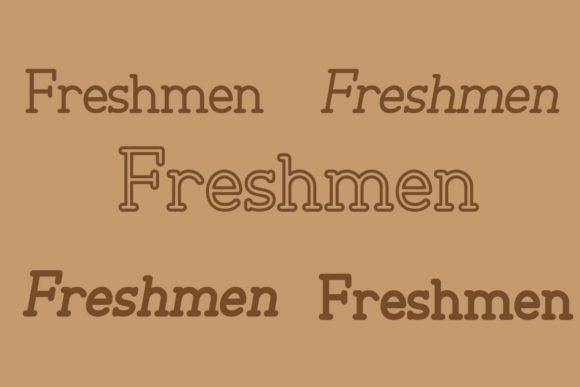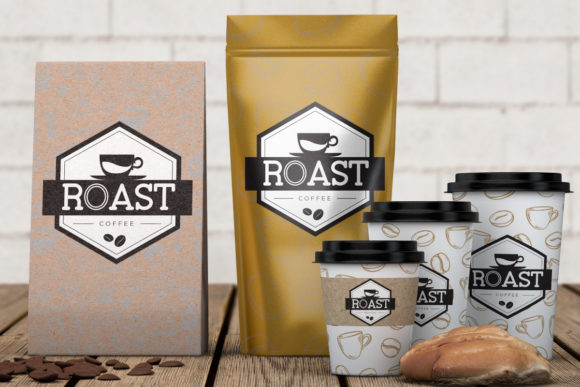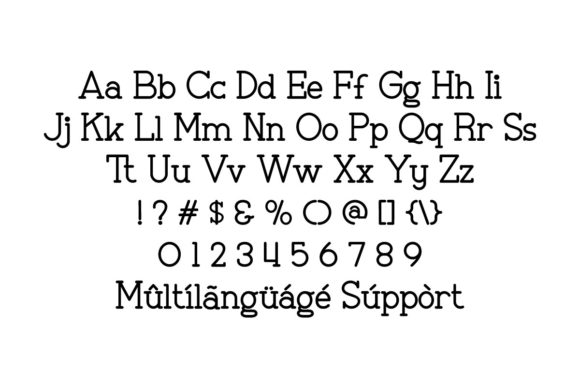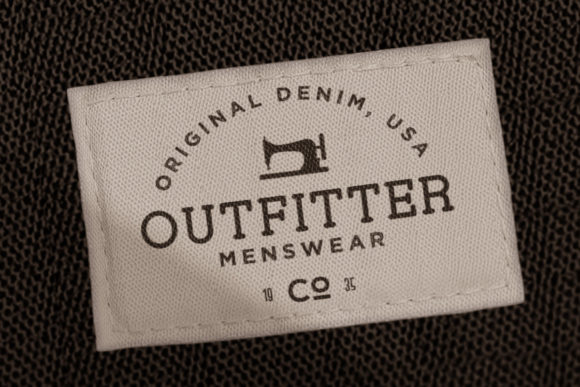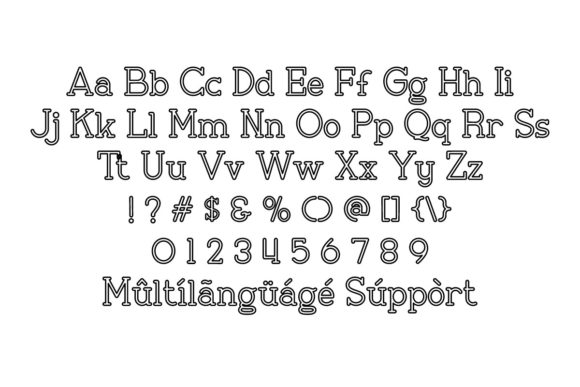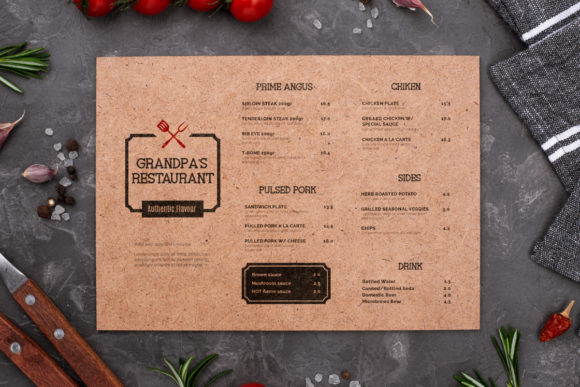
Introduction to Freshmen Font
As you sit at your desk, surrounded by scattered papers, empty coffee cups, and half-finished projects, the excitement of a new creative endeavor takes over. You’ve got a spark of inspiration, and it’s begging to be brought to life. Perhaps it’s a birthday card for a loved one, a presentation for a client, or a personal project that’s been simmering in the back of your mind. Whatever it is, the right font can make all the difference.
Enter the Freshmen Font, a cool and vintage styled slab serif font that’s about to become your new best friend. With its unique blend of modern and classic elements, this font is the perfect addition to any design project. Whether you’re a seasoned designer or just starting out, the Freshmen Font is a valuable resource that will elevate your work and make it truly stand out.
Key Features of Freshmen Font
- High-quality design: Freshmen Font is a premium font designed for creative projects, offering a sophisticated and modern look.
- Unique characteristics: This font features a unique blend of modern and vintage elements, making it perfect for designers looking to add a touch of sophistication to their creative project.
- Easy to customize: With its clean and simple design, Freshmen Font is easy to customize and manipulate, allowing designers to tailor it to their specific needs.
Honest Review: Freshmen Font
I recently came across the Freshmen Font, and I must say it’s an interesting addition to any design resource. As a designer, I’m always on the lookout for high-quality fonts that can elevate my creative project.
- Unique and modern design style ✨
Overall, I think the Freshmen Font is a great choice for designers who want a unique and modern font for their creative project. While it has some limitations, it’s a high-quality font that’s definitely worth considering.
Tips for Getting the Most Out of Freshmen Font
Use the font with a transparent background to create a clean and modern design. Experiment with different font sizes and styles to add visual interest to your project. You can also use the font in combination with other design resources to create a unique and eye-catching visual effect.
Freshmen Font is a versatile design resource that can be used in a variety of creative projects, including social media graphics, presentations, and marketing materials. Its high-quality design and transparent background make it an ideal choice for designers and non-designers alike.